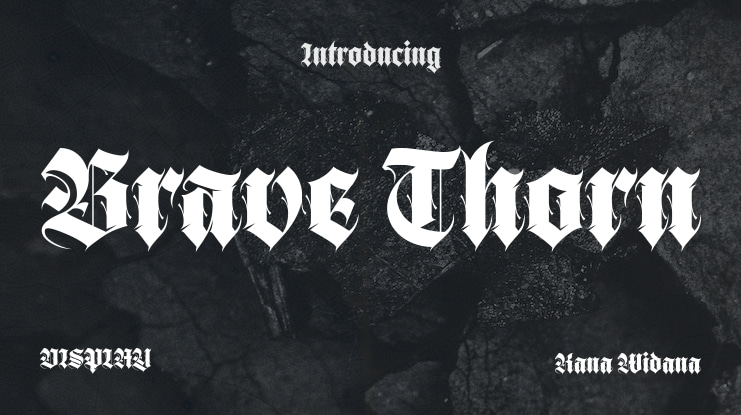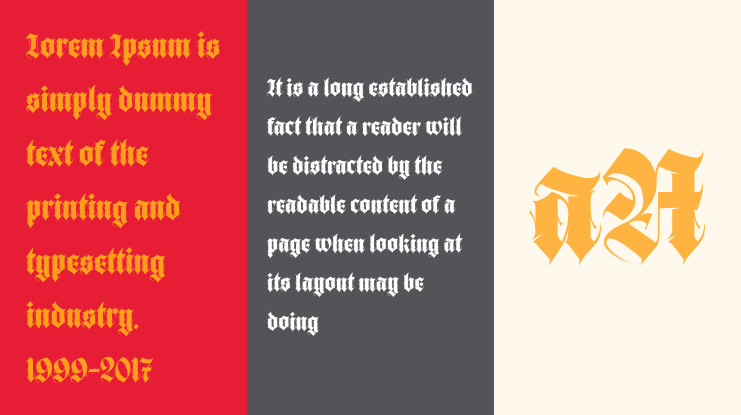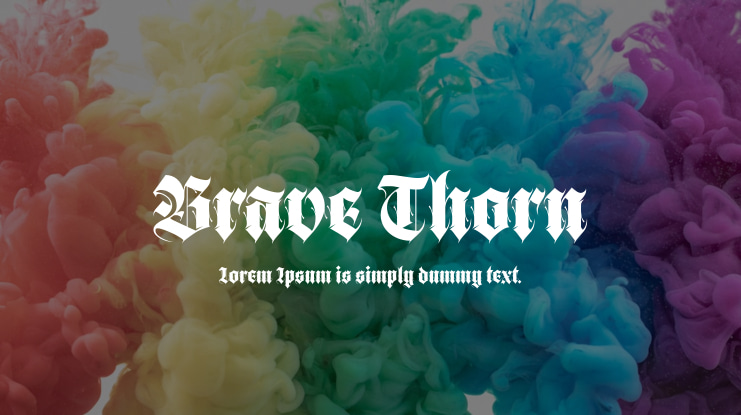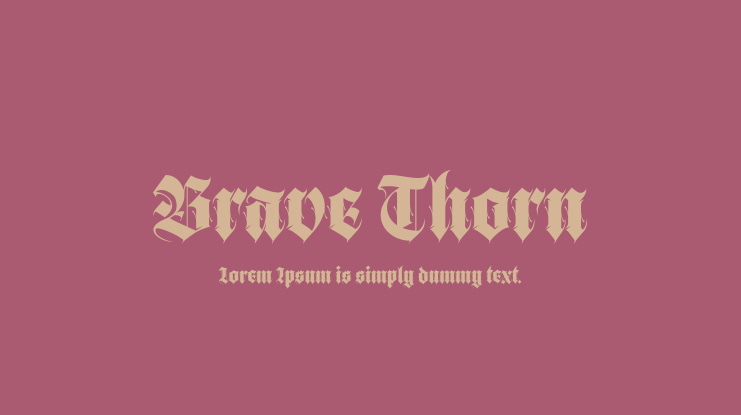
Brave Thorn Font
Kana Widana
🗡️ Bold Thorn Typeface 🌹
Introducing Bold Thorn - a commanding Gothic font that captivates with its strong lines and intricate elements. This typeface exudes power and bravery, making it ideal for eye-catching headlines, logos, and branding.